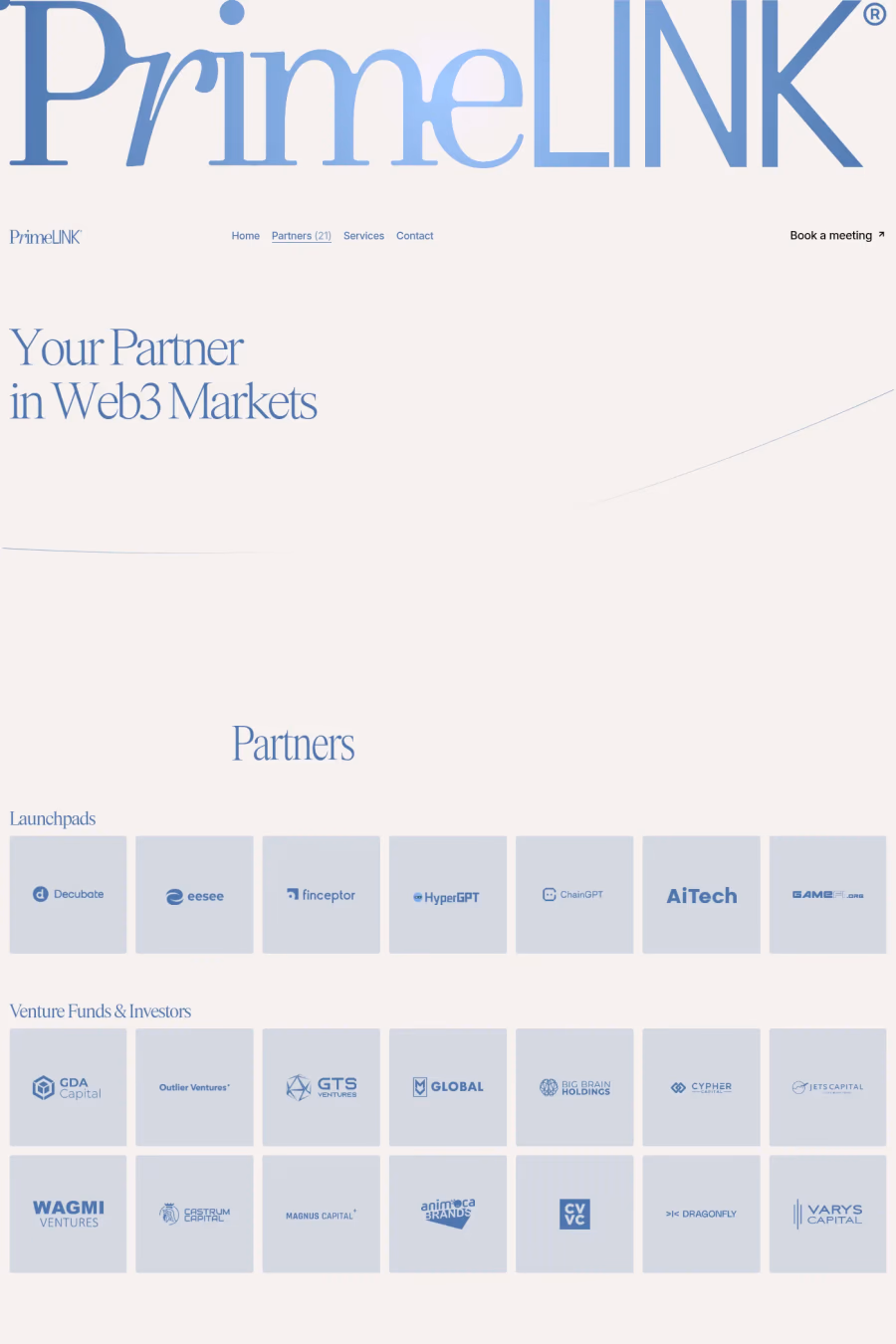
Items is a serif typeface from Schick Toikka.
Items is a contemporary typeface that ties in with the pervasive serifs of the early digital period. Reconciling familiarity with beauty, it seeks to overcome the limitations of Times & co.